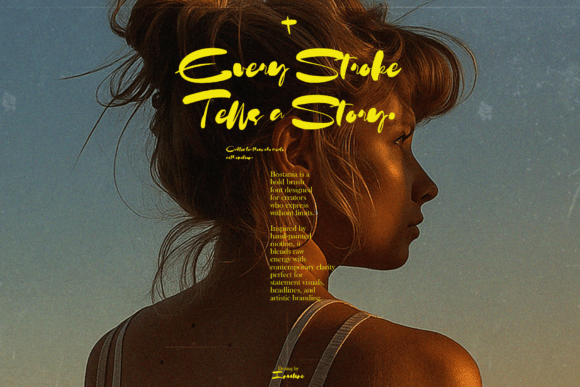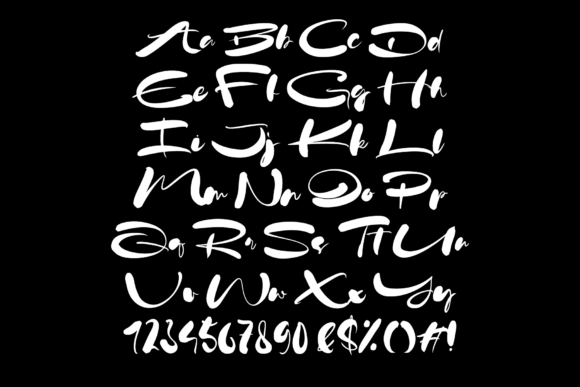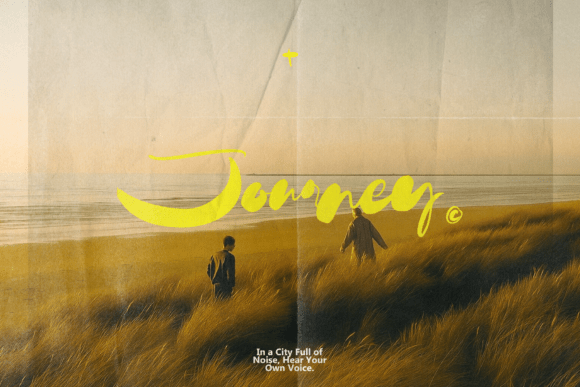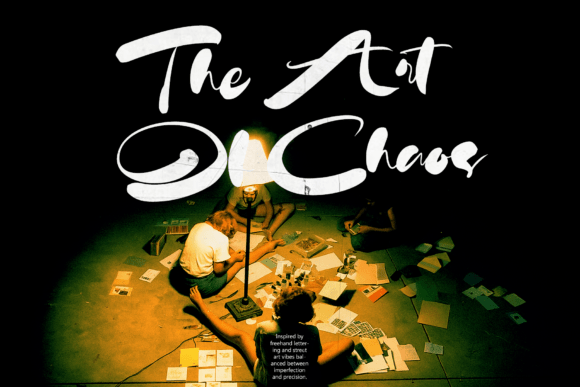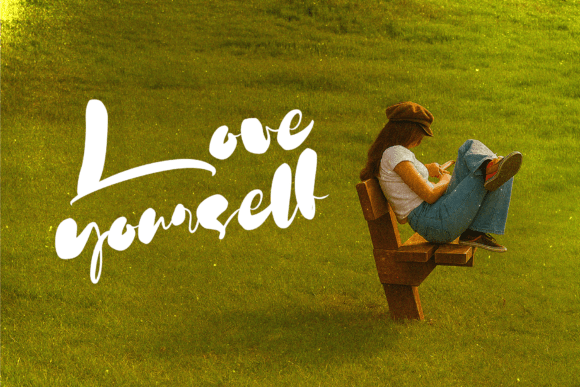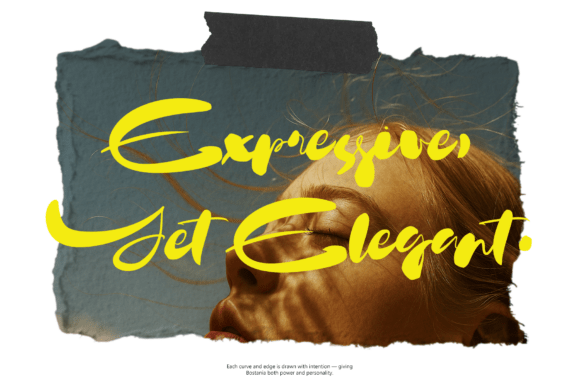
Bastonia Font: Unleash Bold Attitude in Your Designs
In the world of typography, few fonts manage to capture the essence of confidence, energy, and spontaneity as effectively as Bastonia. This bold, expressive brush font is designed to bring a sense of movement and emotion to your designs, making it perfect for outdoor adventure branding, high-octane sports logos, and cinematic title sequences.
The Inspiration Behind Bastonia
Bastonia is inspired by the freehand lettering and street-style calligraphy that can be seen in urban landscapes. The font’s creator aimed to capture the raw energy and natural hand-painted feel of these styles, resulting in a typeface that exudes a “bold attitude.” Every curve and stroke in Bastonia is designed to convey a sense of confidence and spontaneity, making it an ideal choice for designers looking to add a touch of personality to their work.
Key Features of Bastonia
So, what sets Bastonia apart from other fonts? Here are a few key features that make it a standout:
- Bold, expressive brush strokes: Bastonia’s thick, expressive brushwork gives it a massive physical presence, making it perfect for hero images in website headers or apparel designs that need to feel raw and alive.
- Natural hand-painted energy: The font’s natural ink textures and hand-painted feel give it a unique, organic look that’s perfect for designers looking to add a touch of personality to their work.
- Heavy weight: Bastonia’s heavy weight ensures that it commands attention, even against complex photographic backgrounds.
Perfect Pairings for Bastonia
To get the most out of Bastonia, it’s essential to pair it with a font that complements its bold, expressive style. A clean, light sans-serif font is the perfect match, allowing the brush textures of Bastonia to pop and take center stage.
Some popular pairing options include:
- Open Sans: A clean, modern sans-serif font that’s perfect for creating a striking contrast with Bastonia’s bold brushwork.
- Lato: A light, elegant sans-serif font that adds a touch of sophistication to Bastonia’s bold, expressive style.
- Montserrat: A geometric sans-serif font that provides a clean, modern contrast to Bastonia’s natural, hand-painted feel.
Use Cases for Bastonia
Bastonia’s bold, expressive style makes it perfect for a wide range of design projects, including:
- Outdoor adventure branding: Bastonia’s confident, energetic style is perfect for outdoor gear brands, hiking companies, and any business that wants to convey a sense of adventure and exploration.
- High-octane sports logos: The font’s bold, dynamic style makes it perfect for sports teams, fitness brands, and any business that wants to convey a sense of speed, energy, and competition.
- Cinematic title sequences: Bastonia’s expressive, emotive style makes it perfect for title sequences, movie posters, and any project that requires a sense of drama and excitement.
- Streetwear labels: The font’s bold, edgy style makes it perfect for streetwear brands, fashion labels, and any business that wants to convey a sense of attitude and style.
- Fitness motivation posters: Bastonia’s confident, energetic style is perfect for fitness motivation posters, gym branding, and any project that requires a sense of motivation and inspiration.
In conclusion, Bastonia is a bold, expressive brush font that’s perfect for designers looking to add a touch of confidence, energy, and spontaneity to their work. With its natural hand-painted feel, thick expressive brushwork, and heavy weight, Bastonia is an ideal choice for outdoor adventure branding, high-octane sports logos, cinematic title sequences, streetwear labels, fitness motivation posters, and any project that requires a sense of bold attitude and artistic spirit.